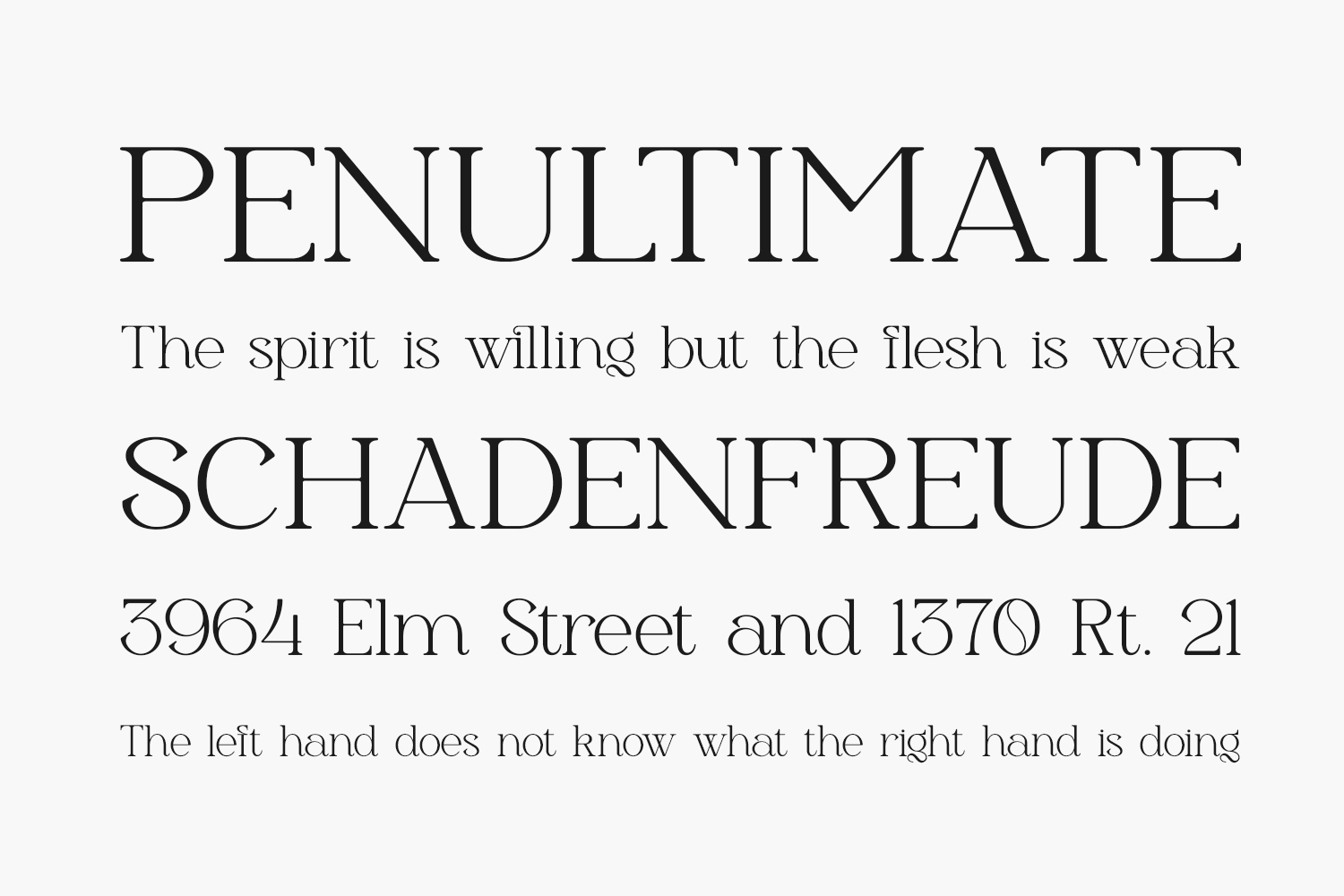
Gerlick Free Font is a contemporary and timeless serif typeface boasting a distinct style and modern appeal. Ideal for creating sophisticated and luxurious logos, book or movie titles, fashion brands, magazines, clothing, lettering, quotes, and a myriad of design applications, this font is a perfect choice. Gerlick Free Font is free for personal use only. Please purchase the full version for commercial use.